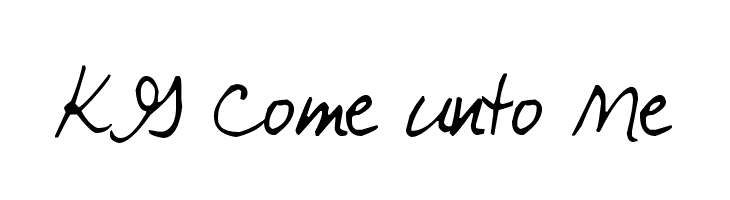
( Fonts by www.kimberlygeswein.com - Kimberly Geswein )
A playful, bubbly font with a hand-drawn, whimsical style.
( Fonts by www.kimberlygeswein.com - Kimberly Geswein )
A playful, hand-drawn font with rounded, bubbly characters.
( Fonts by www.kimberlygeswein.com - Kimberly Geswein )
A playful, handwritten font with a slight slant and rounded characters.
( Fonts by www.kimberlygeswein.com - Kimberly Geswein )
A bold, energetic script font with a hand-drawn, artistic style.
( Fonts by www.kimberlygeswein.com - Kimberly Geswein )
A playful handwritten font with a casual, dynamic style.
( Fonts by www.kimberlygeswein.com - Kimberly Geswein )
A playful cursive font with fluid strokes and a whimsical, handwritten style.
( Fonts by www.kimberlygeswein.com - Kimberly Geswein )
A playful, handwritten font with dynamic strokes and whimsical flourishes.
( Fonts by www.kimberlygeswein.com - Kimberly Geswein )
A distressed, hand-drawn font with a grunge aesthetic.
( Fonts by www.kimberlygeswein.com - Kimberly Geswein )
A distressed, vintage typewriter-style font with a textured, handcrafted look.
( Fonts by www.kimberlygeswein.com - Kimberly Geswein )
A playful, casual handwritten font with fluid strokes and a relaxed feel.